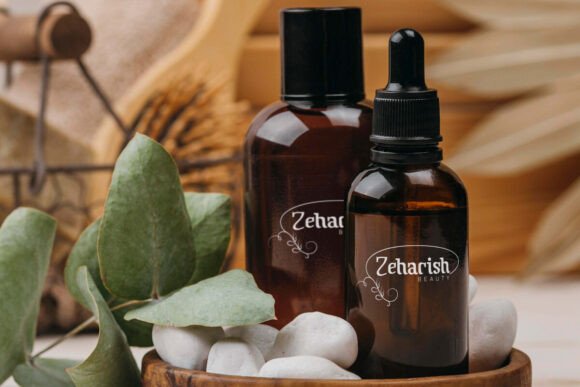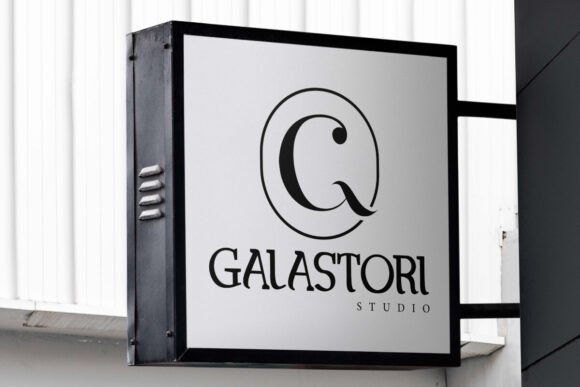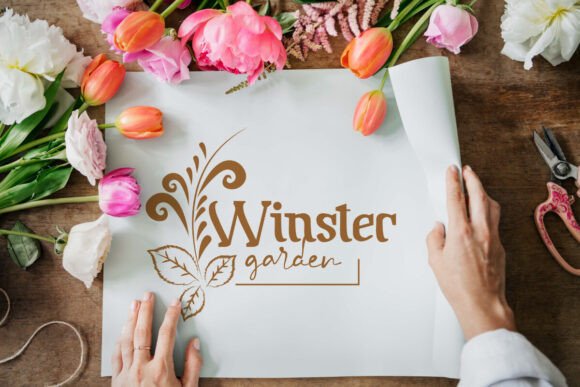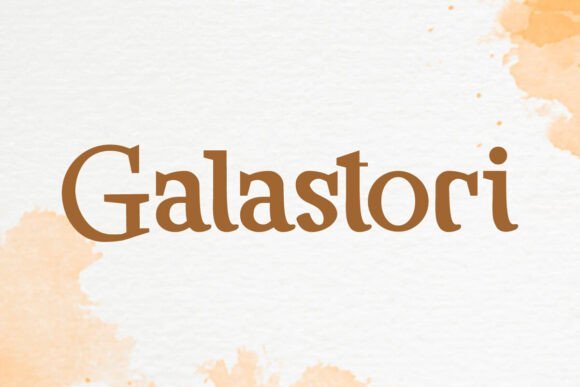
Galastori is a playful serif display font with a fun twist.
It will be a versatile addition to your business, such as author, cafΓ©, children’s education, clothing brand, fashion, florist garden, furniture, handicrafts, ornamental plant, photography, printing, publishing, retail, skincare, wedding, writer, and many more .